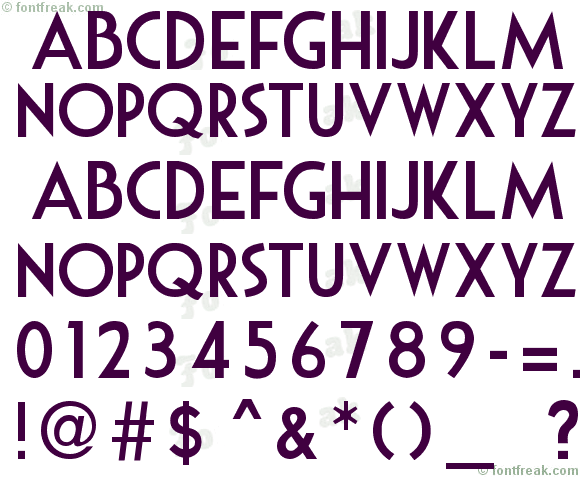
Mouse Deco
Mouse Deco, designed by Steve Ferrera in 2004, is a captivating decorative font that brings a unique flair to various design projects. This freeware font showcases a distinct style that merges playful elements with a sophisticated aesthetic, making it an excellent choice for designers looking to add a touch of creativity to their work. The font features a slightly rounded stroke weight and balanced spacing, creating a harmonious appearance that is both inviting and engaging.
Visually, Mouse Deco is characterized by its clean lines and whimsical details, which contribute to its overall decorative nature. The font balances simplicity with flair, making it versatile enough for a range of applications. It is particularly suited for use in wedding invitations, where its charming style can evoke romance and elegance. Additionally, Mouse Deco is ideal for movie posters, adding a playful yet stylish touch to promotional materials. Restaurant menus can also benefit from this font, as its distinctive look can help to create a memorable dining experience. Content creators and graphic designers will find this font appealing for social media graphics, where eye-catching typography can enhance visual storytelling.
The target audience for Mouse Deco includes graphic designers, small business owners, and content creators who seek distinctive typography that stands out. Its unique design elements make it perfect for projects that require a blend of fun and professionalism.
What sets the Mouse Deco font apart is its ability to bridge the gap between playful and sophisticated design. This font is not just a tool for communication; it transforms text into an engaging visual experience. For those interested in incorporating this charming typeface into their projects, the Mouse Deco font free download is an excellent opportunity to explore its creative potential.